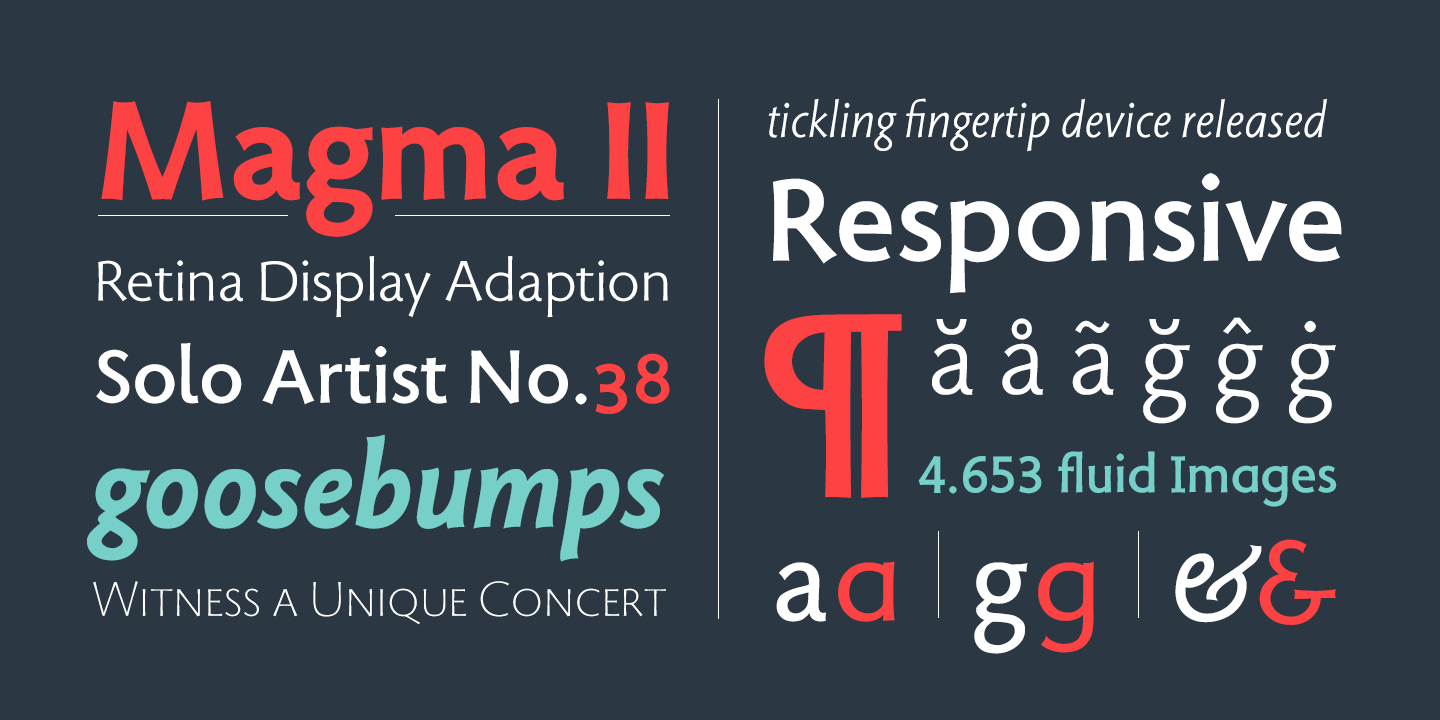
Magma II Font is a powerful and highly distinctive typeface, often characterized by its robust forms and contemporary edge, making it ideal for impactful design work. Imagine it as the commanding headline for a cutting-edge technology publication, providing a strong and legible presence for an architectural firm's branding, or adding a sleek, modern aesthetic to high-end product packaging. Its sturdy construction and clear letterforms make it an excellent choice for corporate communications, digital interfaces, impactful signage, and any project that aims to convey strength, innovation, and reliability. It performs exceptionally well in both large display sizes and smaller text blocks, ensuring clarity in both print and digital applications.
What makes Magma II Font truly exciting is its unique blend of geometric precision and subtle warmth, allowing it to feel both authoritative and approachable. It takes the solid foundation of its predecessor and refines it, often offering improved legibility and a more harmonious balance across its weights. This thoughtful evolution ensures that Magma II Font can adapt seamlessly to diverse brand identities, from minimalist and high-tech to industrial and artistic. Designers frequently praise its meticulous craftsmanship, excellent readability even in demanding environments, and its inherent versatility that allows it to excel in both display and text settings. It's not just a font; it's a finely honed typographic instrument for modern visual communication.
The Magma II Font family is typically extensive and well-structured, providing a comprehensive range of weights and styles to satisfy a broad spectrum of design requirements. You can generally expect to find a wide array of weights, ranging from a delicate Thin or Light, perfect for subtle accents and airy compositions, to a powerful Black or Ultra, ideal for impactful headlines and strong visual statements. Crucially, most Magma II Font families also include corresponding Italic versions for each weight, which significantly enhances its flexibility for creating visual hierarchies and adding dynamic emphasis within your text. This extensive selection ensures remarkable creative control and allows you to achieve the perfect typographic tone for any project. Don't miss out on Magma II Font Free Download for your next design endeavor!